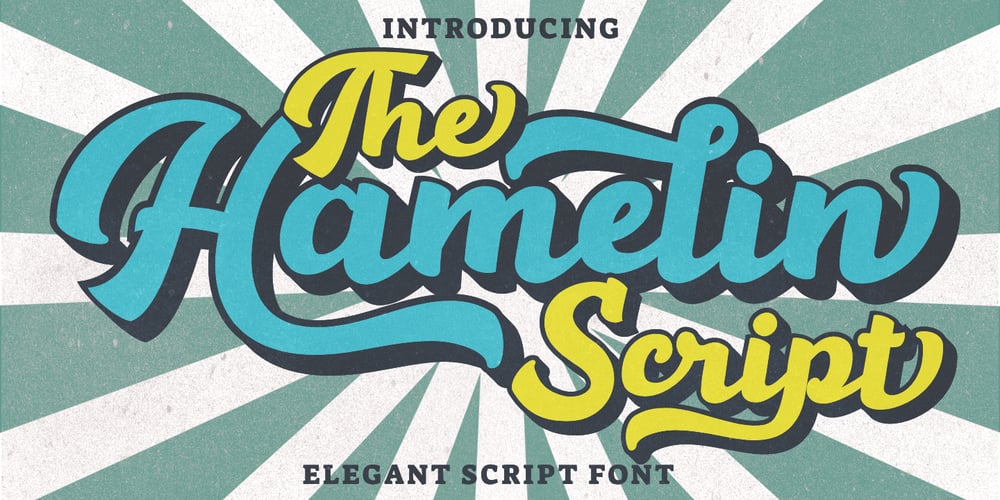
Hamelin Font Family was designed by Dian Haniffan Hadi and published by Beary. Hamelin contains 2 styles and family package options. Hamelin is inspired by a retro look and combination with a hand lettering style. Every single letters has been carefully crafted to make your text looks beautiful. I hope this can inspire you for your work. Font is PUA encoded so you can access extras from character map in most design software. To enable the OpenType Stylistic alternates, you need a program that supports OpenType features such as Adobe Illustrator CS, Adobe Indesign & CorelDraw. There are additional ways to access alternates, using Character Map (Windows), Nexus Font (Windows), Font Book (Mac) or a software program such as PopChar (for Windows and Mac). Happy Creating